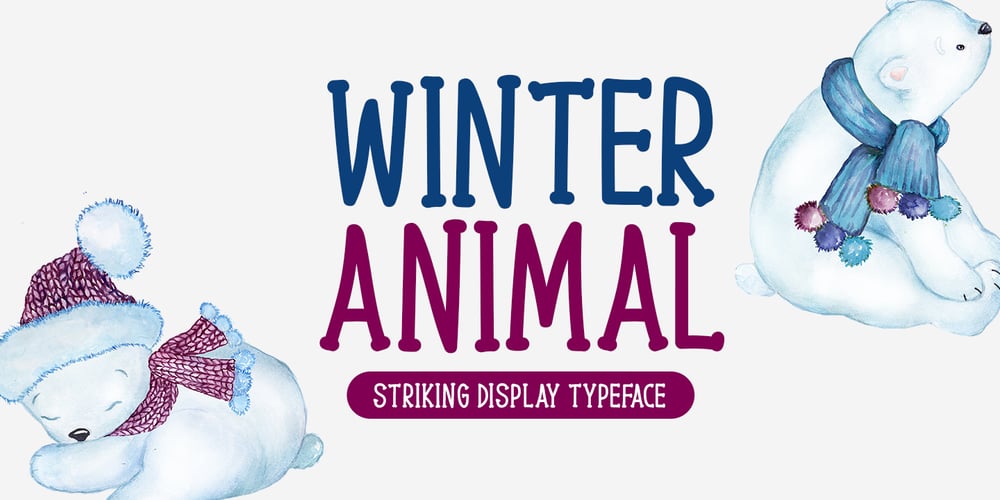
Winter Animal Font Family was designed by Md Shohail Bhuian and published by Seemly Fonts. Winter Animal contains 1 styles and family package options. Winter Animal is an incomparable display font. It can easily be matched to an incredibly large set of projects, so add it to your creative ideas and notice how it makes them stand out!